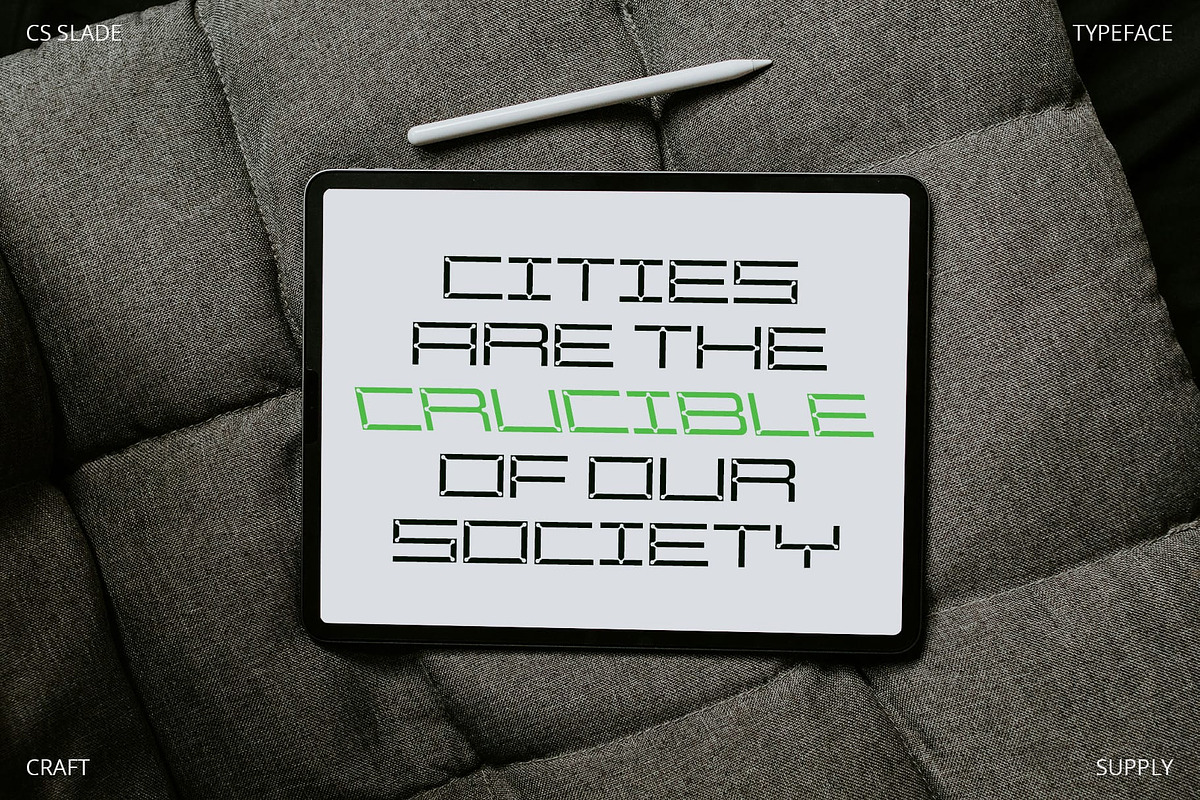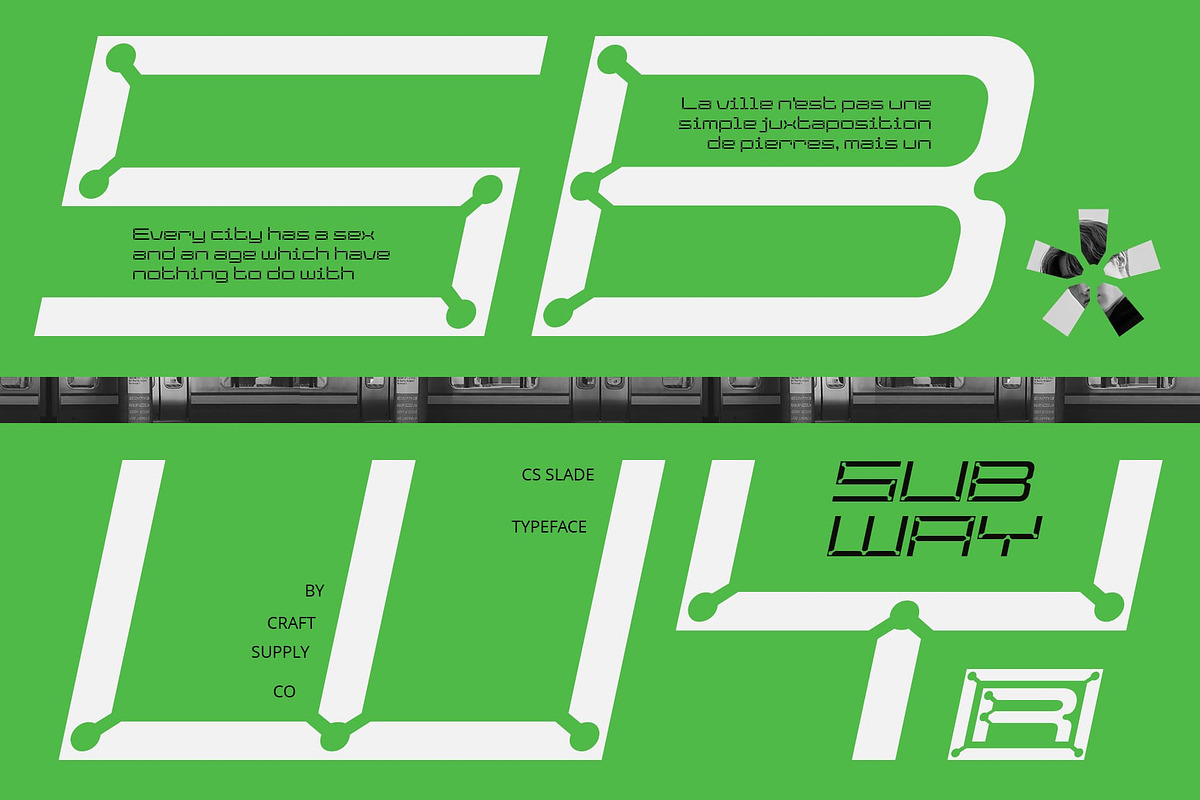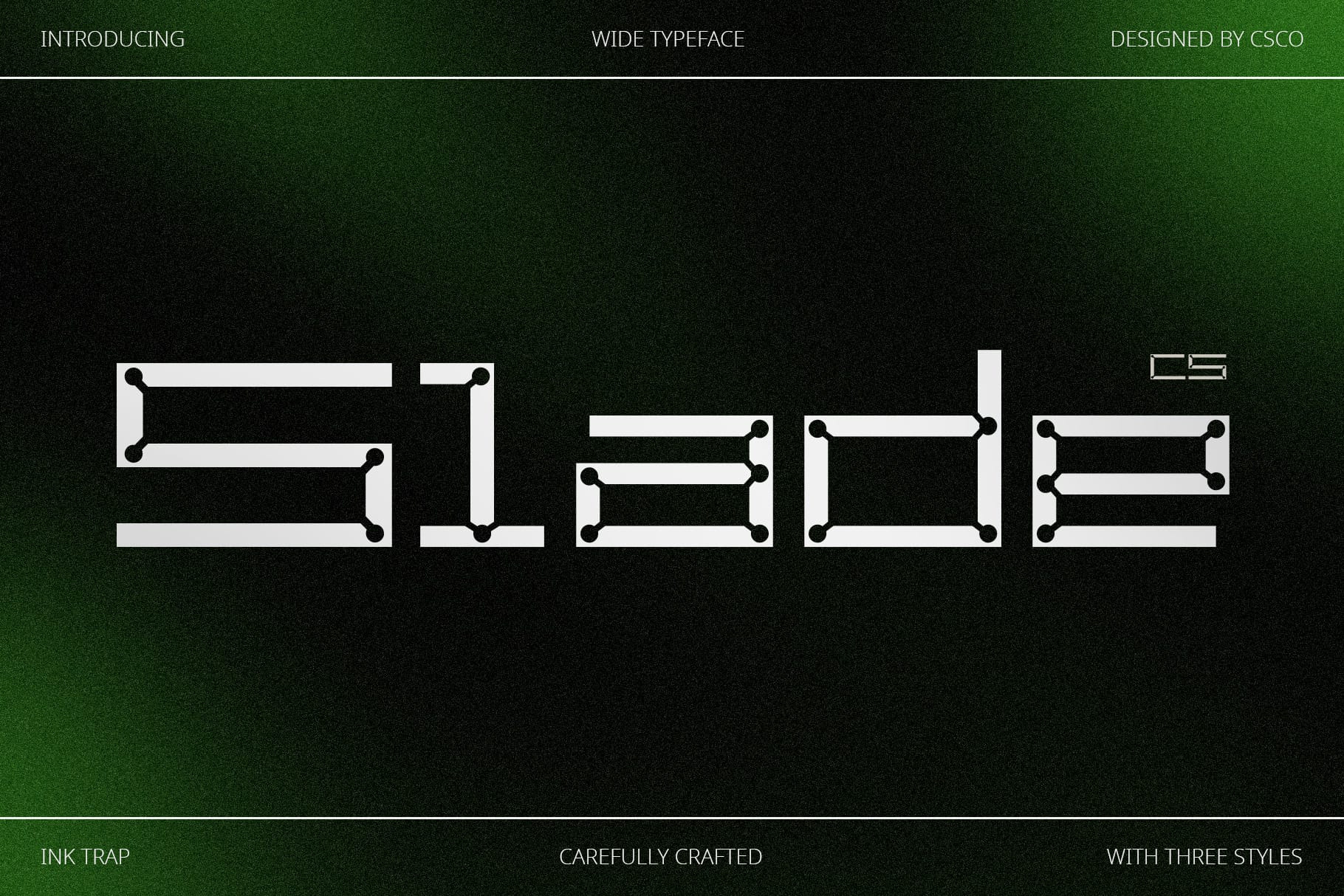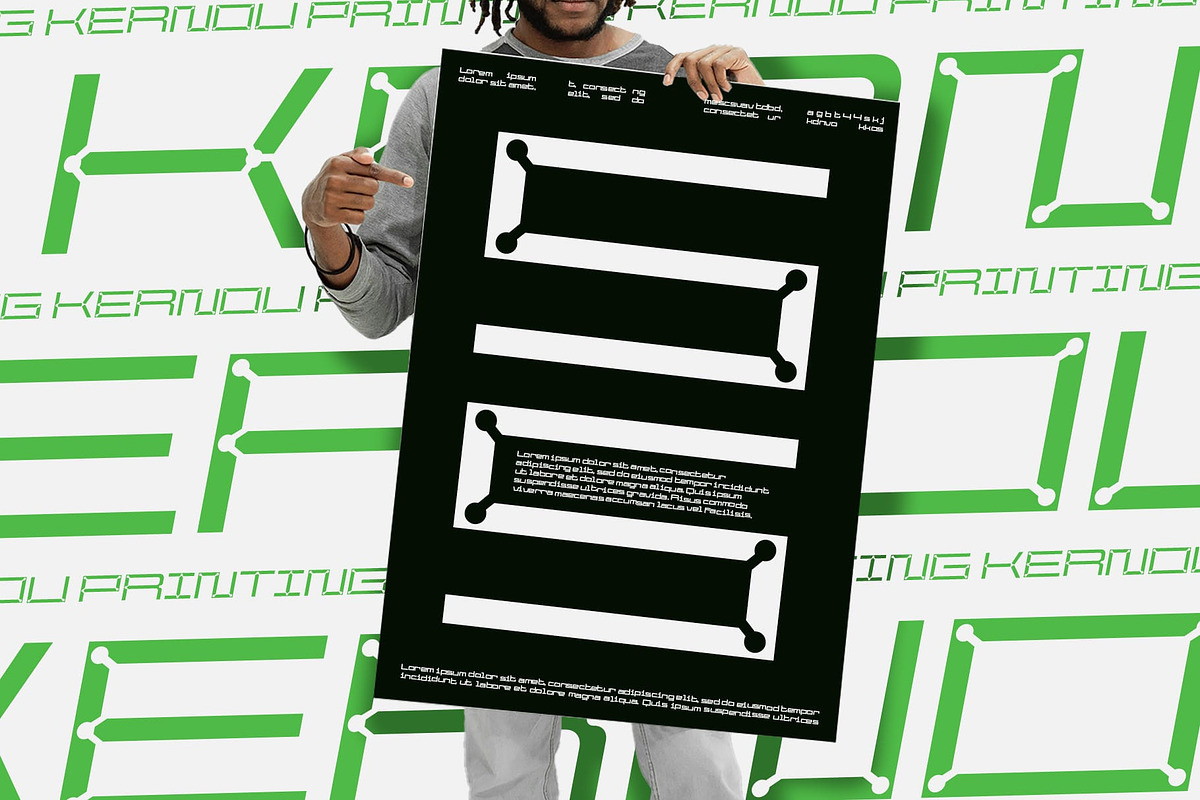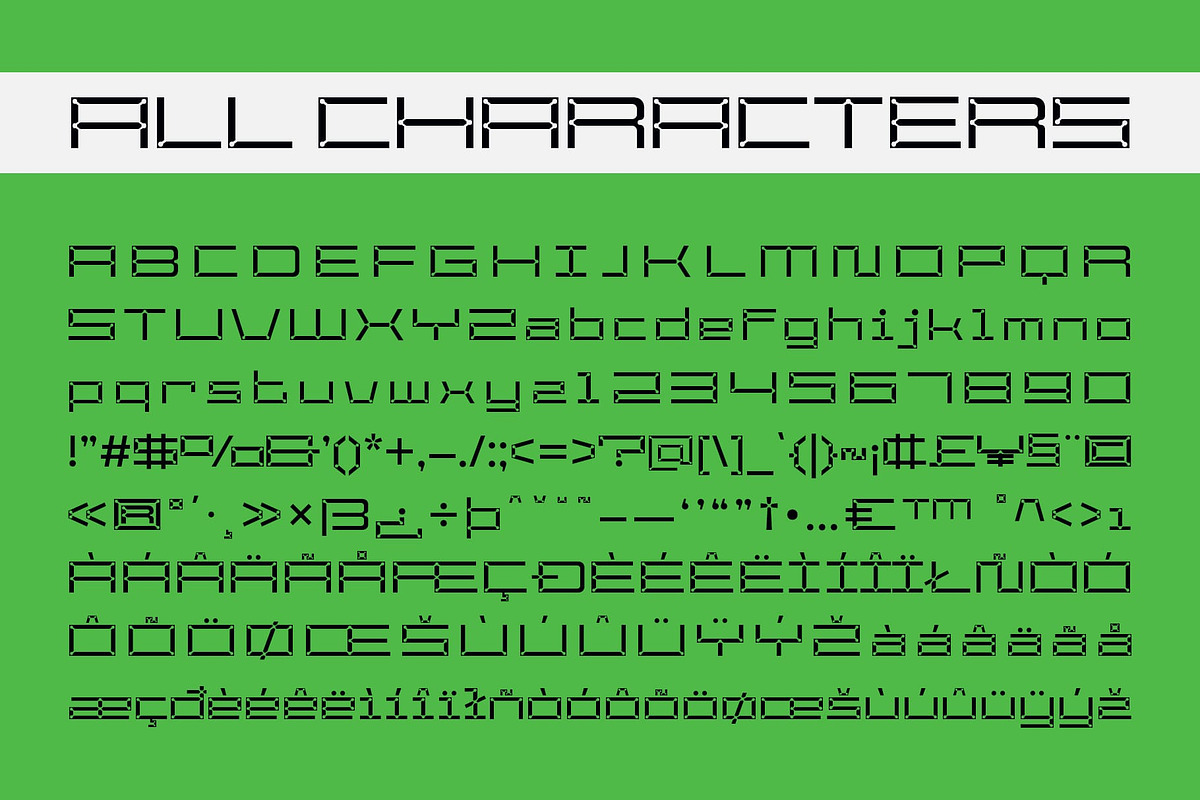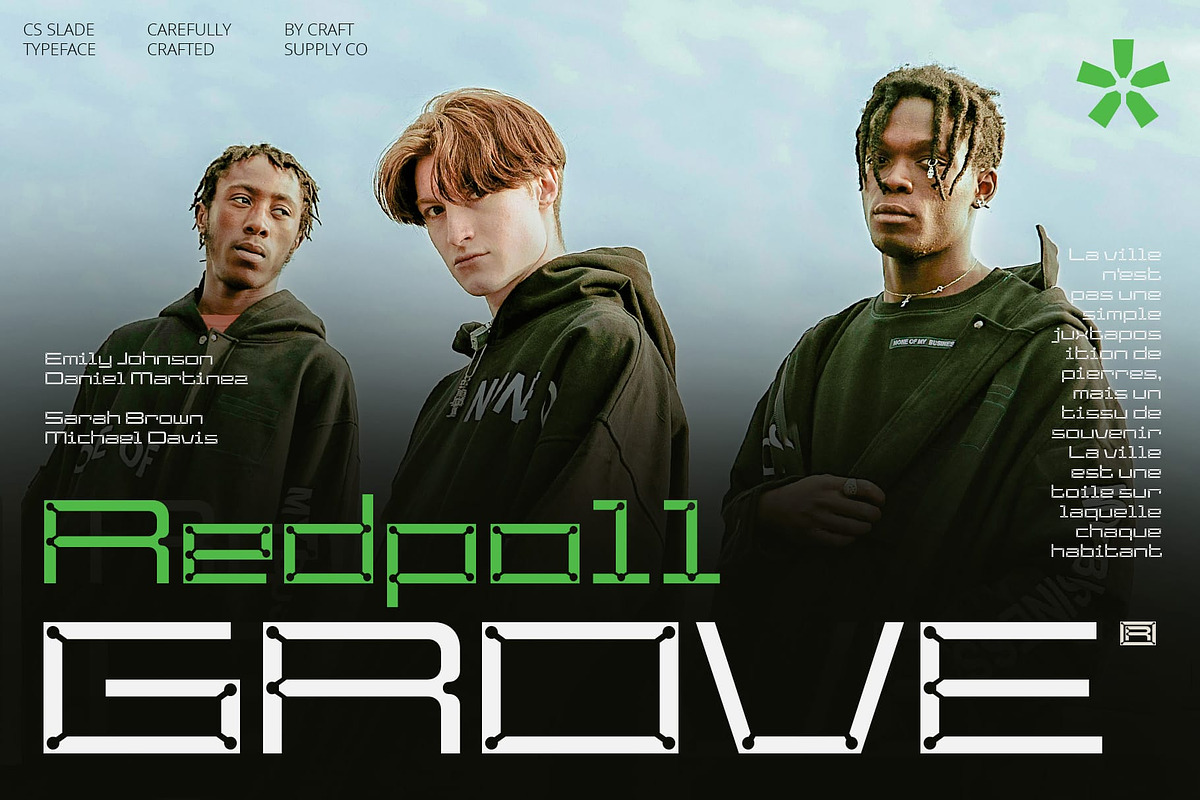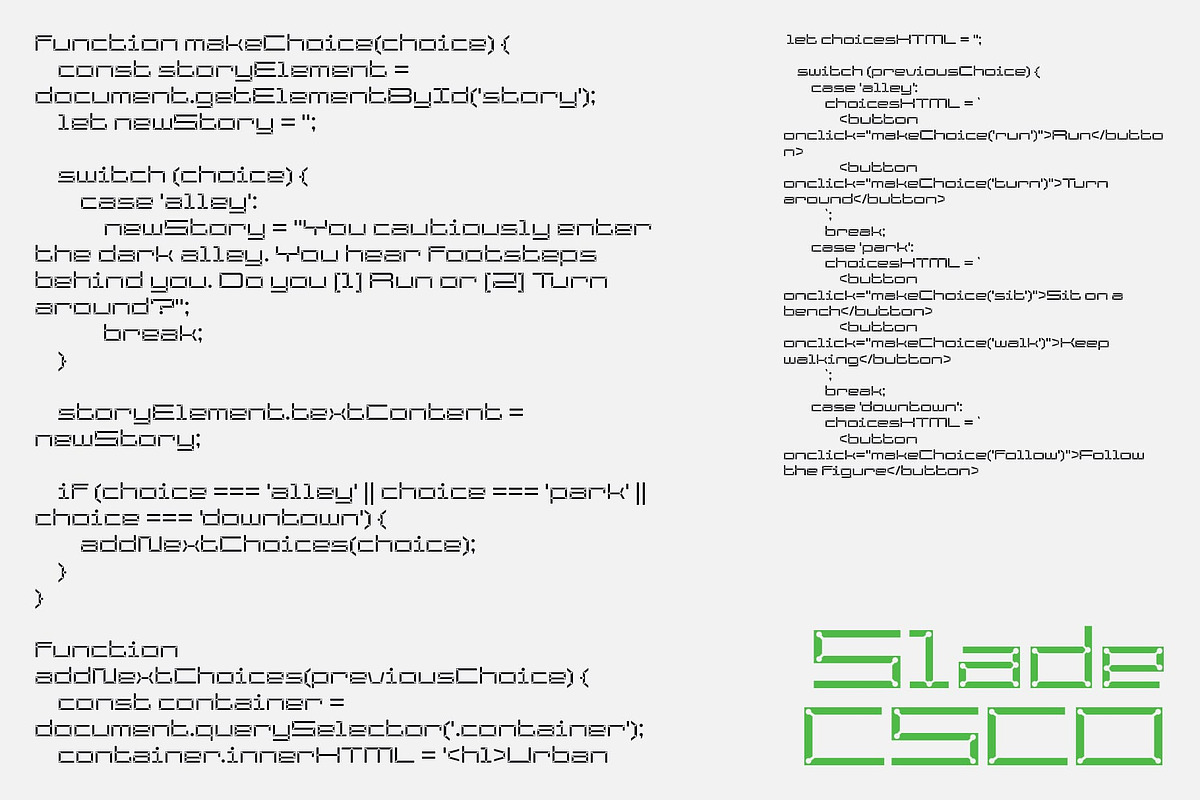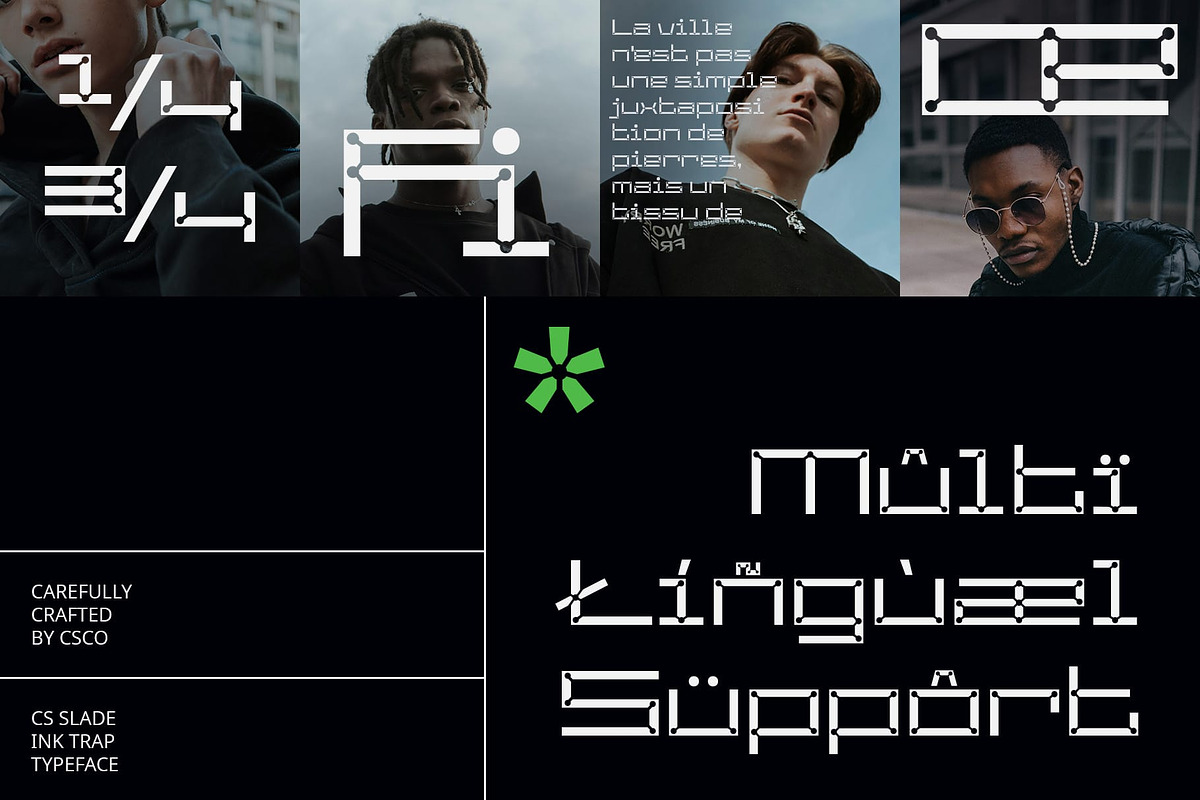
CS Slade – Inktrap Font
CS Slade – Inktrap Font: Where Modernity Meets Intrigue
Introduction CS Slade is a modern sans-serif font that features inktrap details and a wide font, offering a unique combination of clean, contemporary design with intriguing details. The inktrap details add a unique touch to the letters, while the wide font provides ample space for each character, making it suitable for designs that require bold and easy-to-read text.
Modern Sans-Serif Design CS Slade features a clean and modern sans-serif design, perfect for contemporary designs. The absence of serifs gives the font a sleek and sophisticated look, while the inktrap details add depth and character to the letters.
Intriguing Inktrap Details The inktrap details in CS Slade add an intriguing element to the font, emphasizing corners and fine details. This feature gives the font a unique and appealing look, making it stand out in any design project.
Wide Font for Boldness and Readability The wide font of CS Slade provides ample space for each character, making it bold and easy to read. Whether used in headlines, banners, or logos, this font ensures that your message is clear and impactful.
- CS Slade Regular
- CS Slade Italic
- CS Slade ReverseItalic